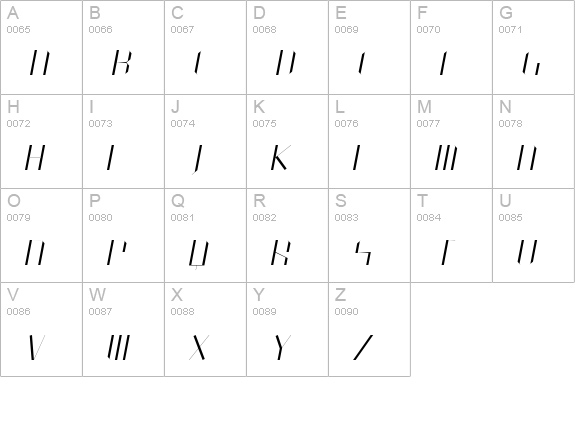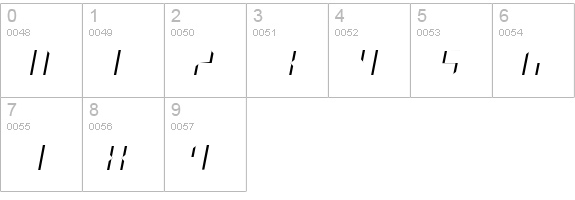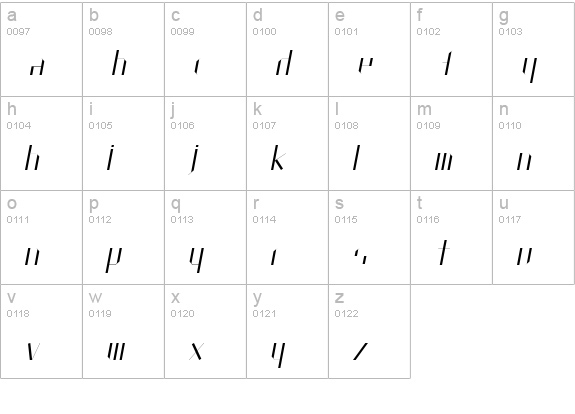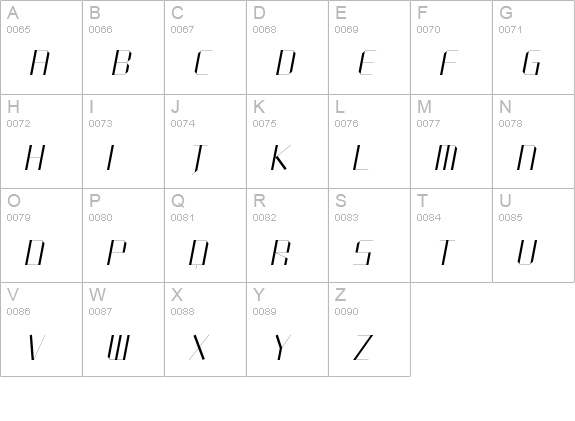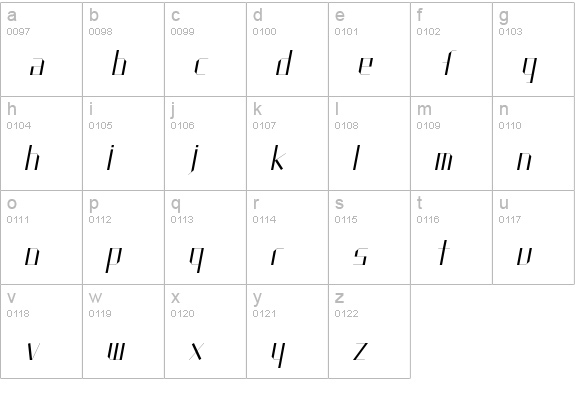
PlainItalic Font Details
Introducing PlainItalic, a sleek and elegant font designed to add a touch of sophistication to any design project. With its effortlessly flowing lines and stylish slant, this font exudes an air of modernity and grace. Whether used for headlines, body text, or even logos, PlainItalic captivates with its understated yet captivating charm. This font's versatility knows no bounds, effortlessly adapting to various design styles and themes. It effortlessly combines classic and contemporary elements, making it the perfect choice for both traditional and modern designs. Its clean and legible characters ensure readability, while its italicized styling adds a touch of flair and uniqueness. What sets PlainItalic apart is not just its impeccable design, but also its accessibility. This font is available free of charge, making it an invaluable asset for designers, students, and anyone looking to add a touch of elegance to their projects. You can easily download PlainItalic from FontsMarket.com, a trusted source for high-quality fonts. So whether you're working on a personal project, a professional presentation, or a creative endeavor, PlainItalic is here to elevate your design to new heights. With its seamless blend of style and accessibility, this font is a must-have for anyone seeking to make a lasting impression. Download PlainItalic today from FontsMarket.com and unlock the potential of your designs.